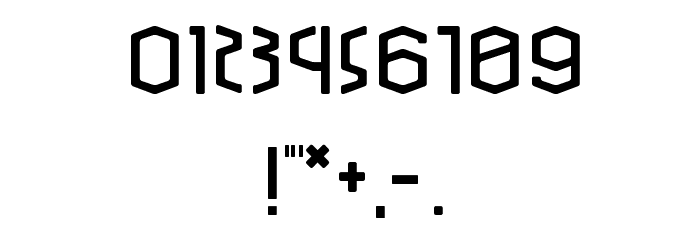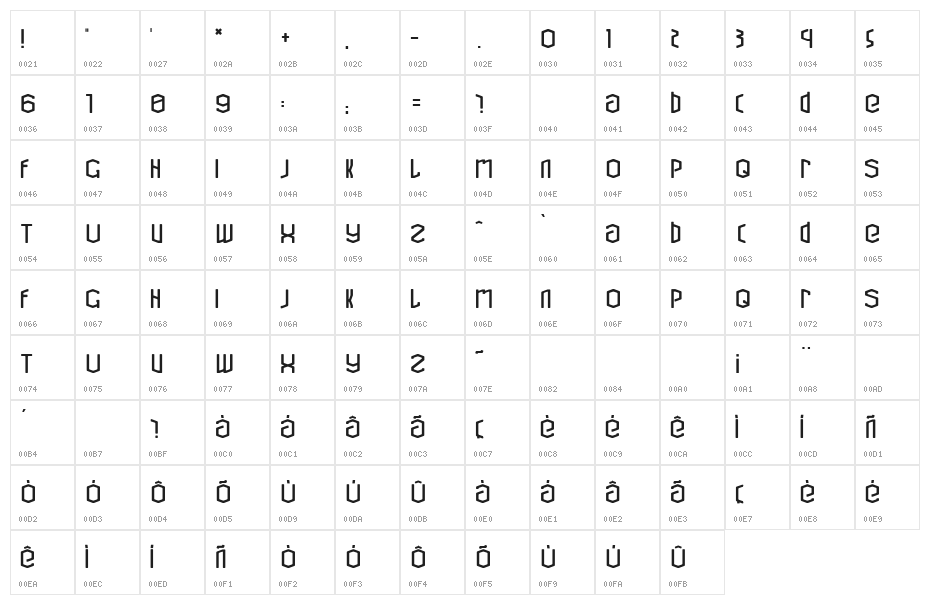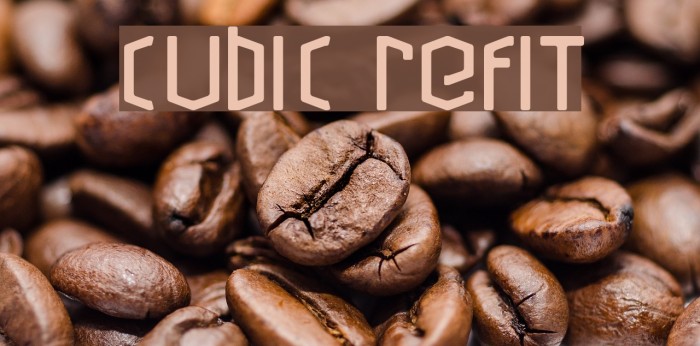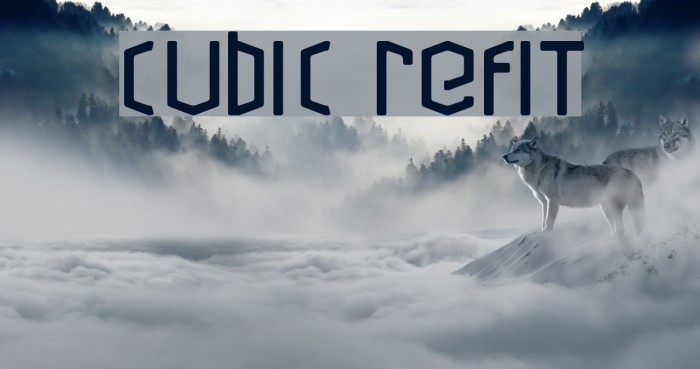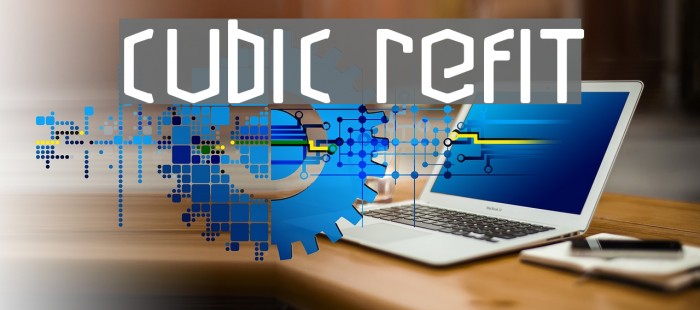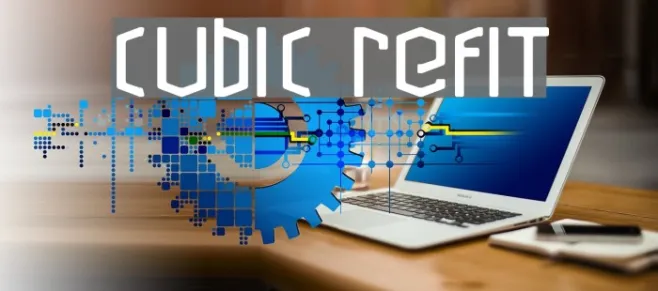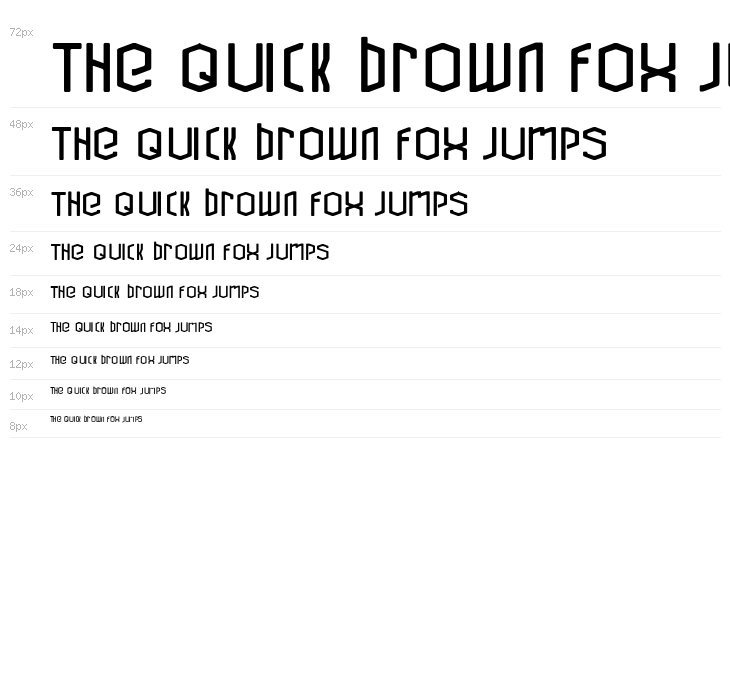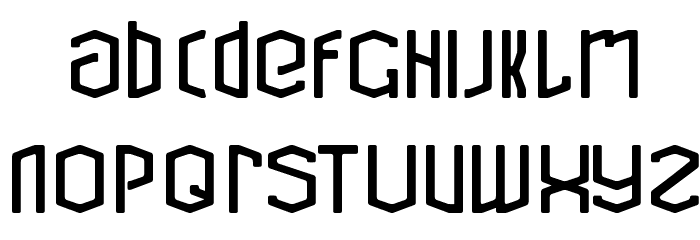
Cubic Refit Font
Cubic Refit Description
This font features a geometric and angular design, characterized by its cubic and block-like appearance. Each character is constructed with straight lines and sharp angles, giving it a modern and futuristic feel. The uppercase and lowercase letters maintain a consistent height, contributing to a uniform look. The numbers and special characters follow the same design principles, ensuring a cohesive style throughout. The font's unique structure makes it stand out, ideal for projects that require a bold and distinctive typeface.
| Proposed Projects | Ideal for technology branding, video game titles, sci-fi posters, and modern logo designs. |